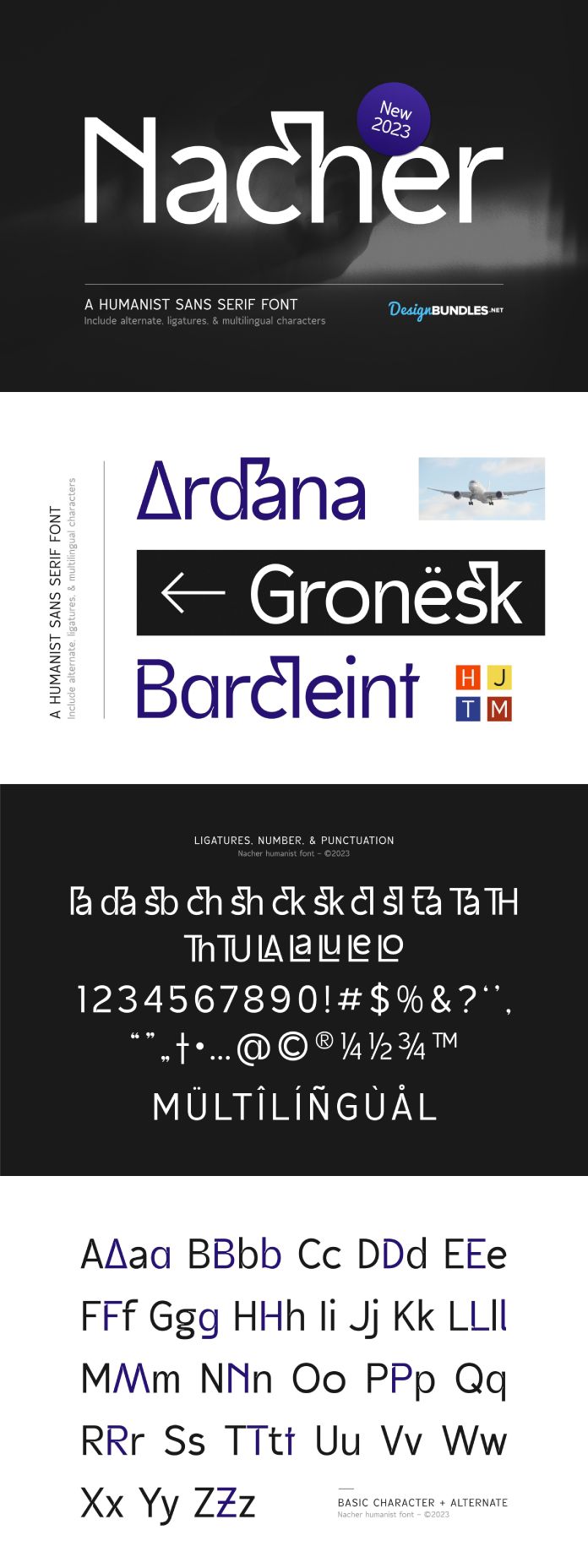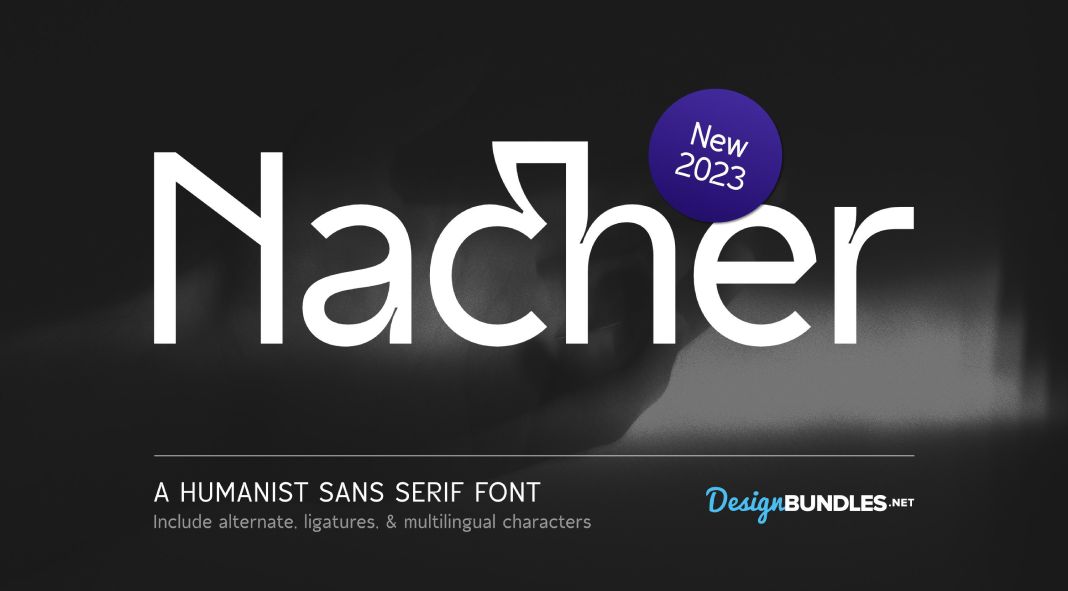
Introducing Nacher: A Humanist Sans Serif Font for Modern Design
In the ever-evolving world of design, the right font can make all the difference. Whether you’re working on a logotype, branding project, packaging design, or even a custom t-shirt, the new Nacher font promises to elevate your work to the next level. Released in 2023, Nacher is a humanist sans serif font that brings a fresh, contemporary feel to any project it touches.
Versatility in Design
One of the standout features of Nacher is its incredible versatility. This font is designed to be a true workhorse, suitable for a wide range of applications. Here are some of the many ways you can incorporate Nacher into your design work:
- Logotypes: The clean and modern aesthetic of Nacher makes it ideal for creating memorable and professional logos.
- Branding Projects: Whether you’re developing a new brand or rebranding an existing one, Nacher’s unique character will help your brand stand out.
- Packaging: Nacher’s clarity and legibility ensure that your packaging designs are both attractive and easy to read.
- Quotes and Posters: Make your quotes and posters pop with Nacher’s bold and stylish letterforms.
- T-Shirts: Create eye-catching t-shirt designs that people will love to wear.
- Invitations: Set the tone for any event with beautifully designed invitations featuring Nacher.
Comprehensive Character Set
Nacher is not just about good looks—it’s also incredibly functional. The font includes both uppercase and lowercase letters, providing designers with the flexibility to create varied and dynamic typographic layouts. Additionally, Nacher comes with a complete set of numerals, punctuation, and symbols, making it a comprehensive tool for any design project.
Multilingual Support
In today’s global market, having a font that supports multiple languages is essential. Nacher rises to the occasion with extensive multilingual support, ensuring that your designs can communicate effectively with audiences around the world. From accents to special characters, Nacher has you covered.
Unique Features
What sets Nacher apart from other fonts is its distinctive humanist touch. The font includes alternate characters and ligatures, allowing designers to add a personal and creative flair to their work. These features enhance the aesthetic appeal of your designs and provide additional options for customization.
Technical Specifications
- Style: Humanist Sans Serif
- Release Year: 2023
- Character Set: Uppercase, Lowercase, Numerals, Punctuation, Symbols
- Special Features: Alternate Characters, Ligatures
- Multilingual Support: Yes
Nacher is more than just a font—it’s a tool for creative expression. Its blend of modern aesthetics, comprehensive character set, and multilingual support makes it an invaluable asset for designers working on a variety of projects. Whether you’re designing a logo, a poster, or an entire branding package, Nacher provides the flexibility and functionality you need to bring your vision to life.